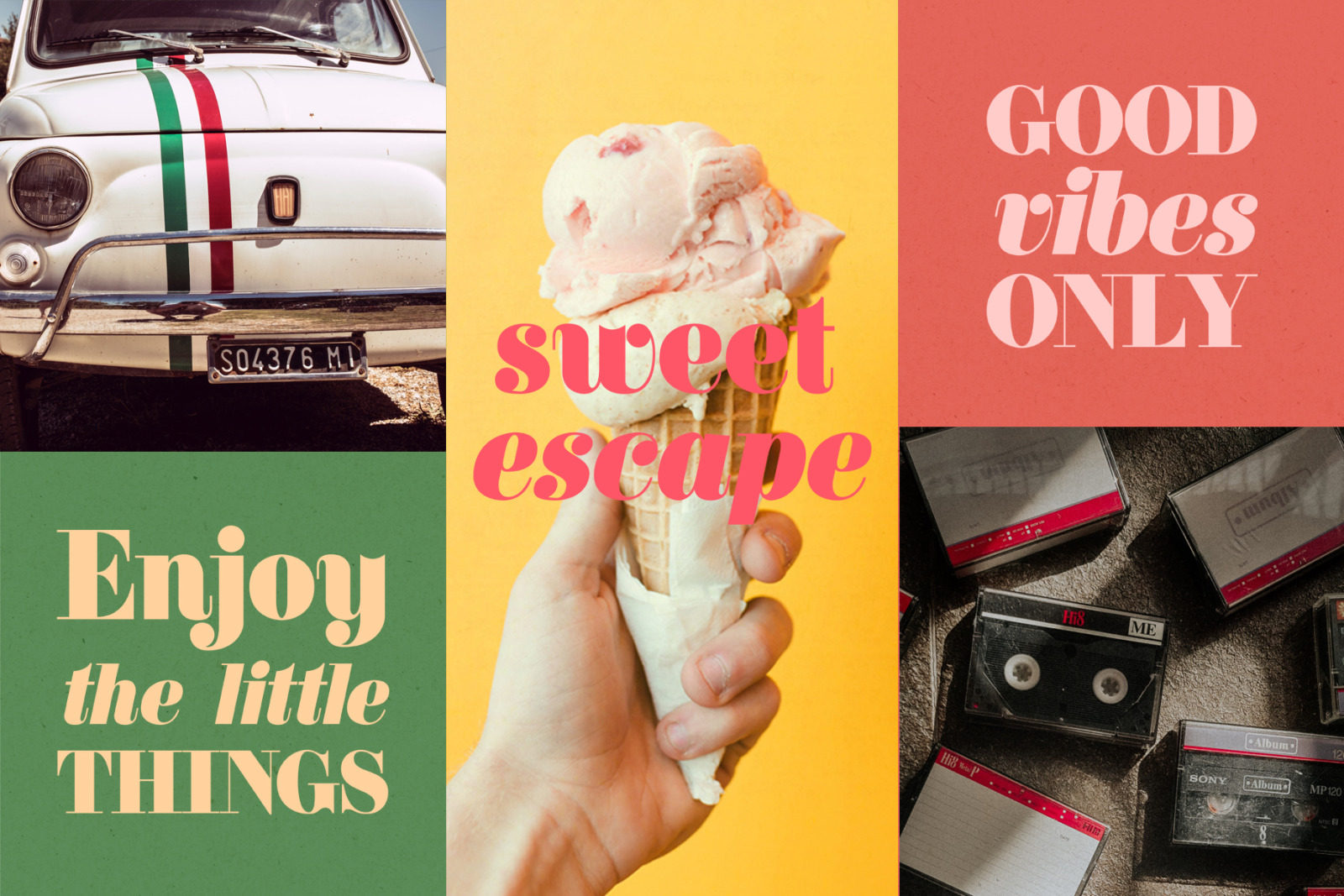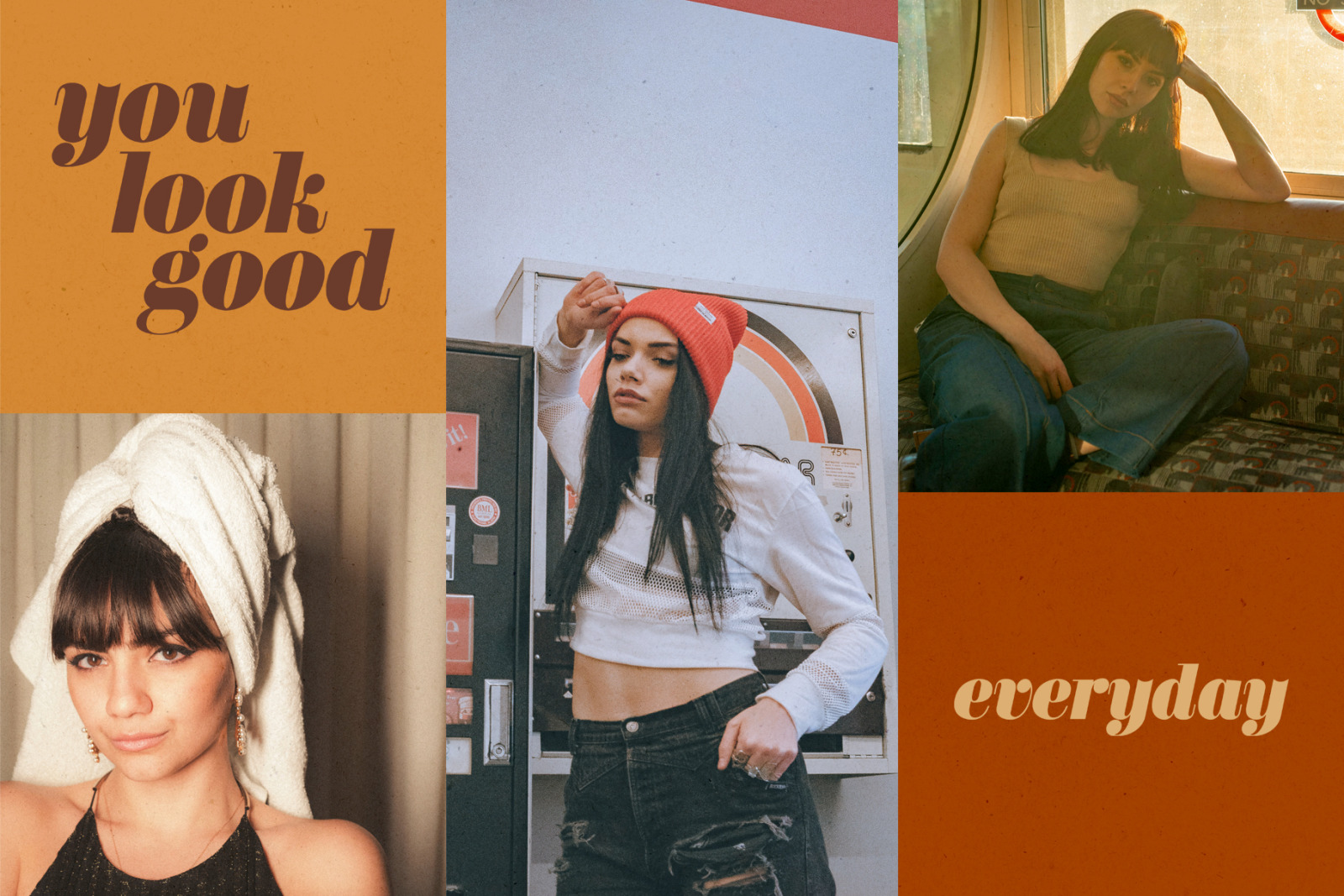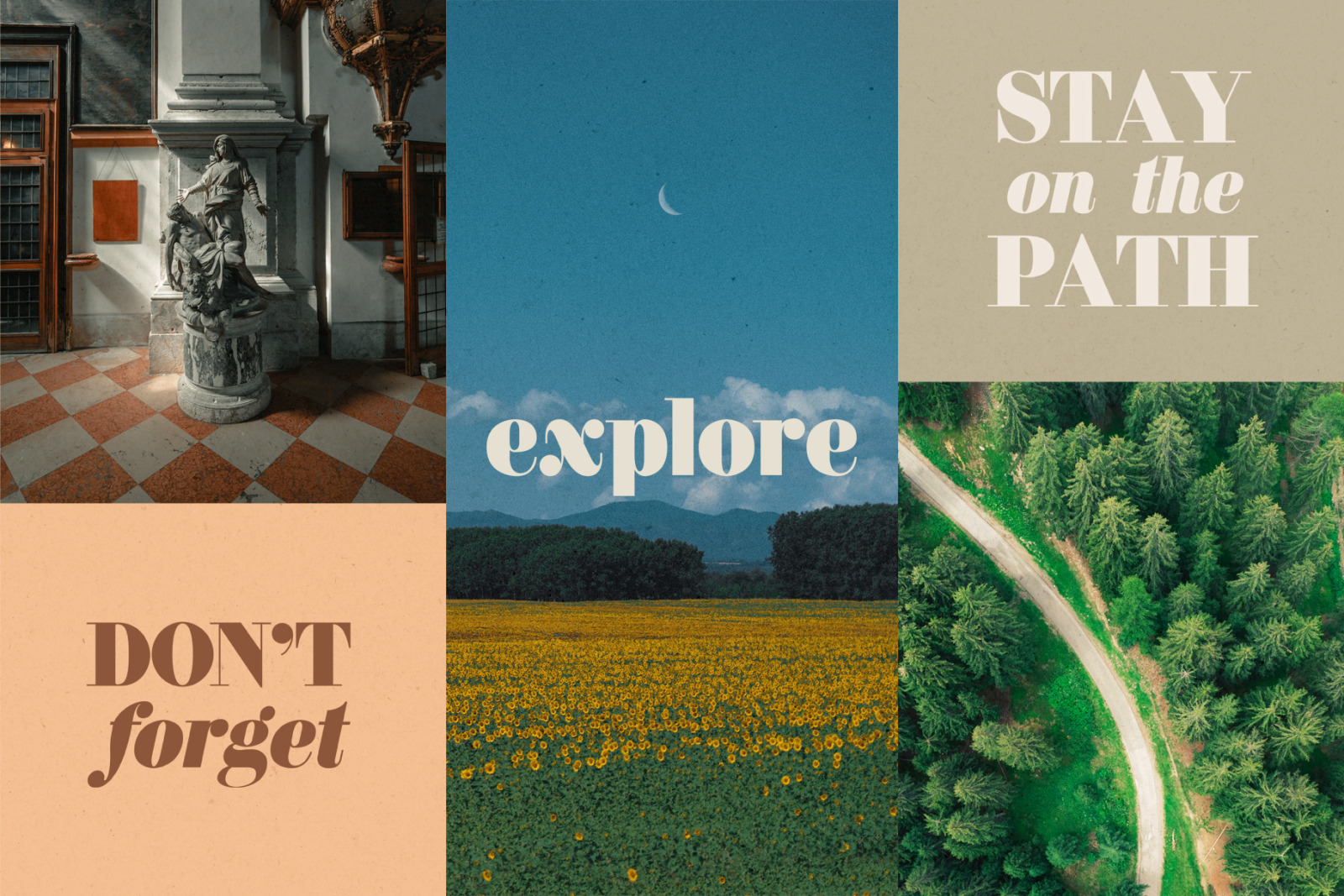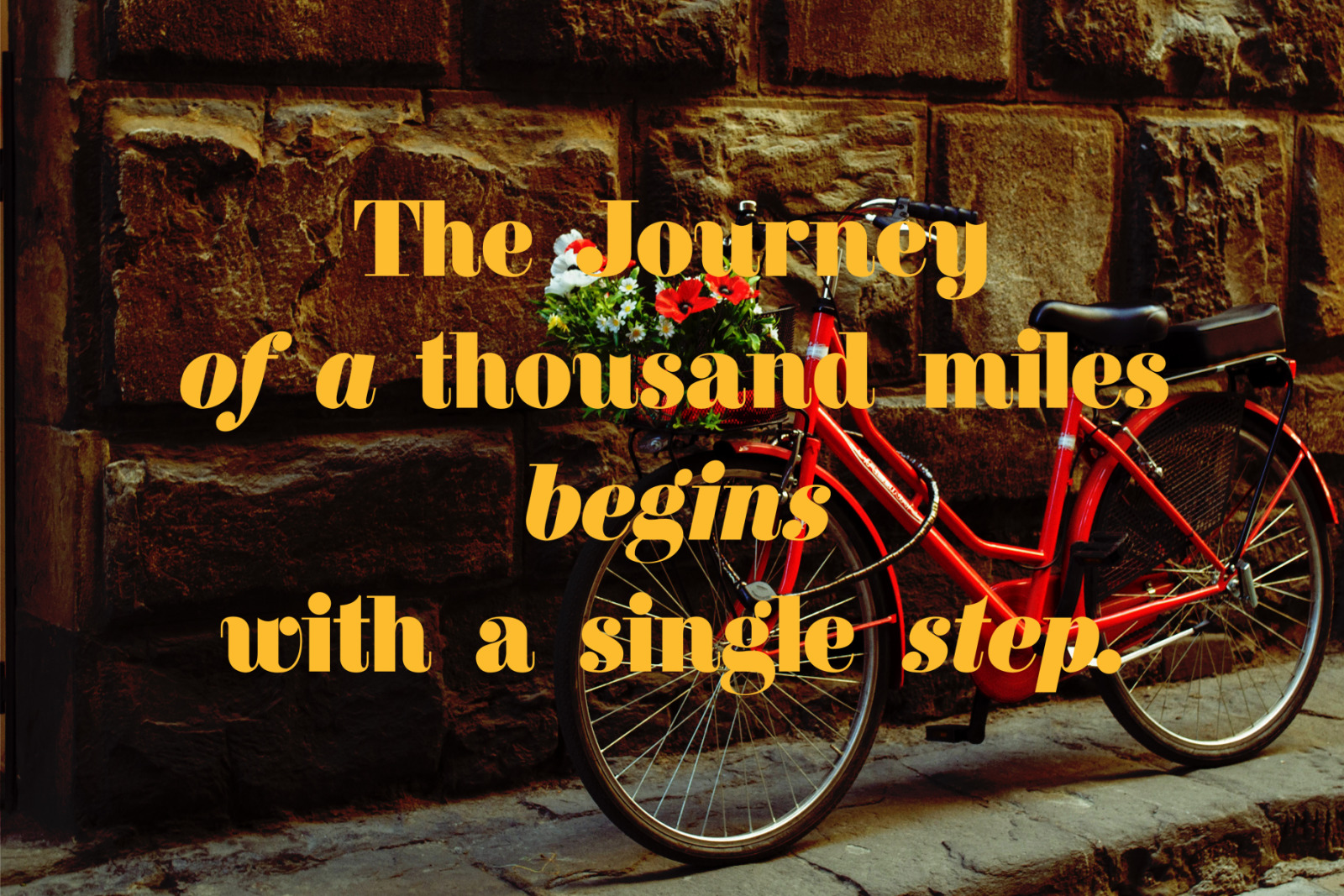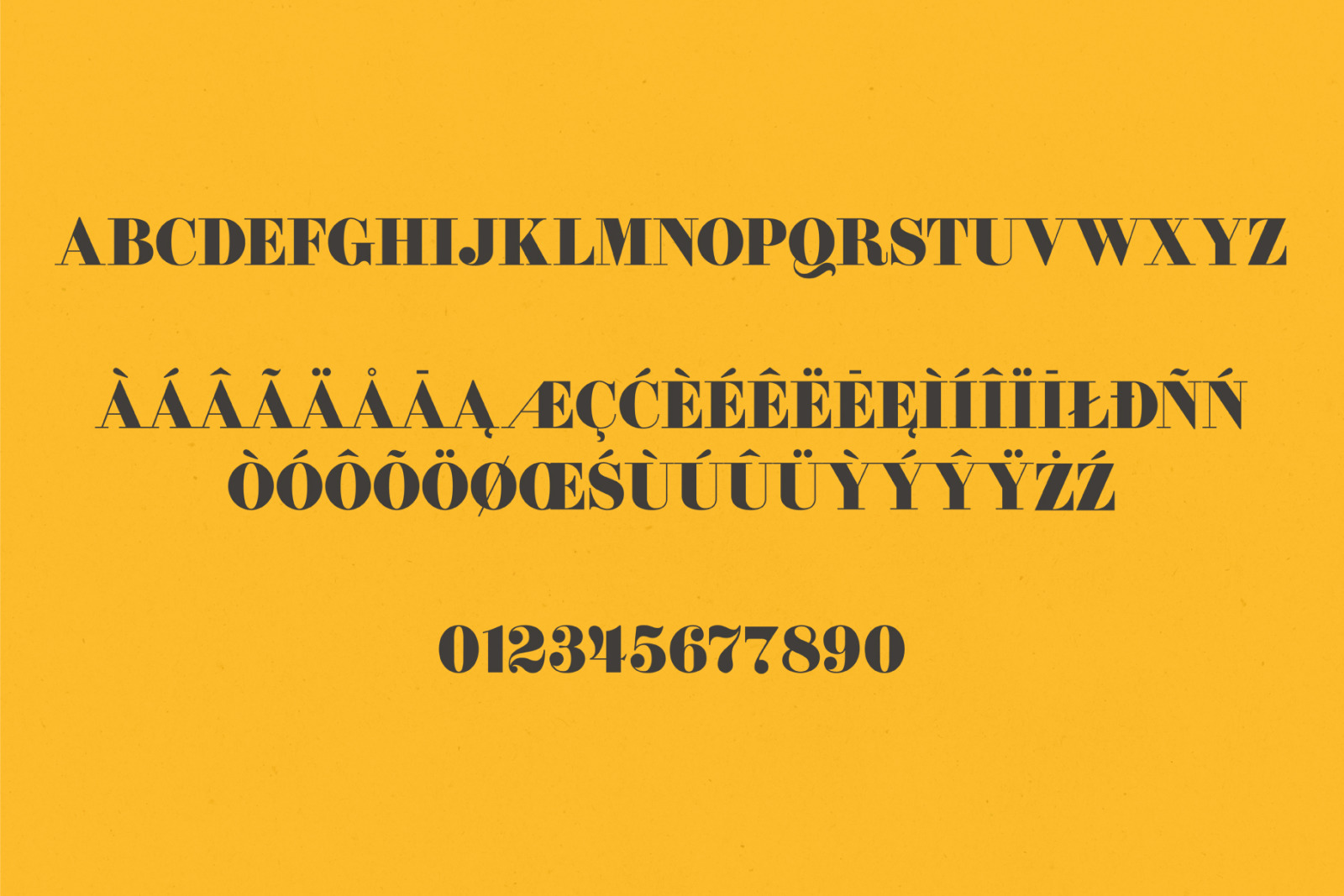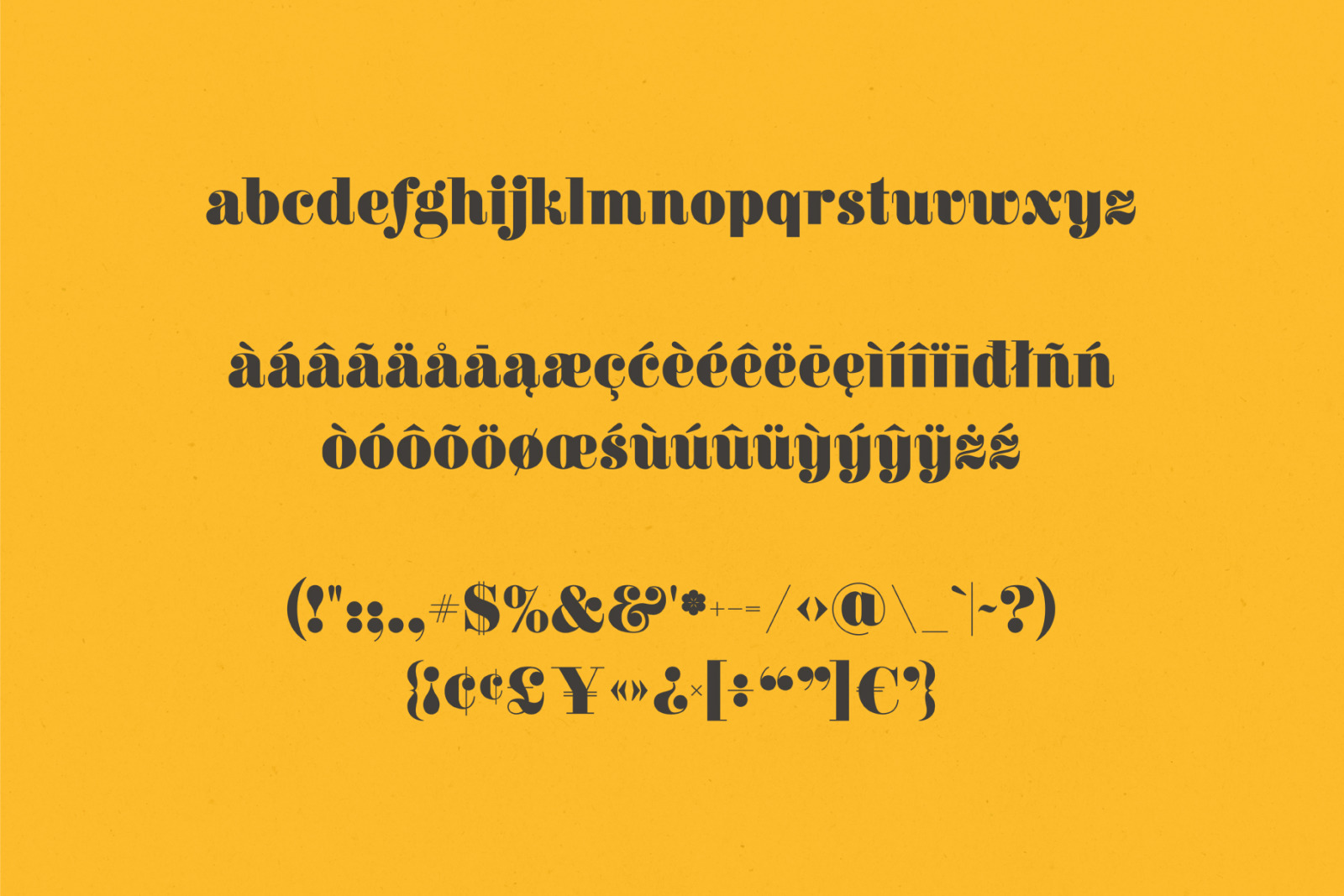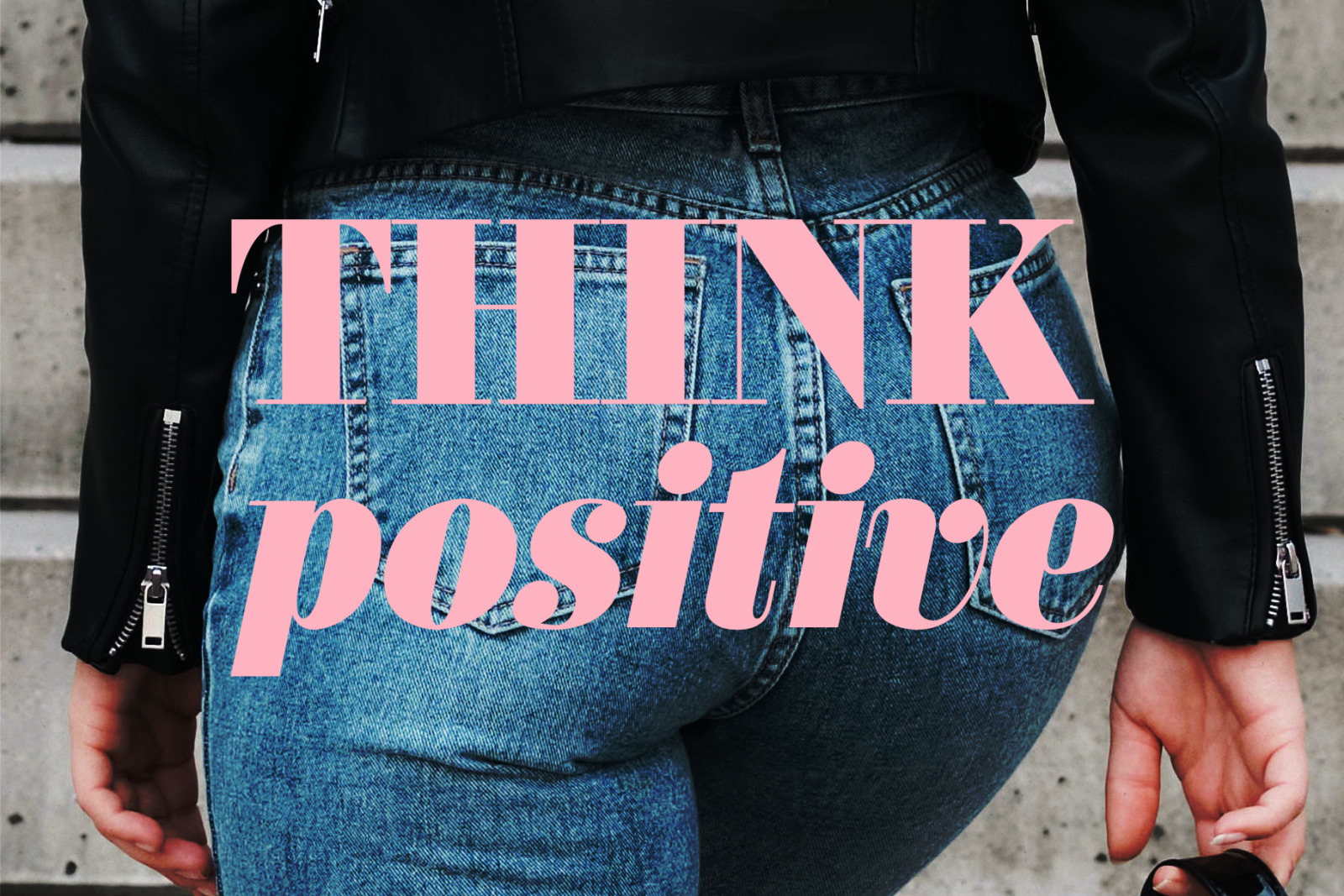
Florenzia Font
Florenzia is a bold elegant serif font. Is inspired by 70s style. Regular and italic styles allow for interesting combinations and fun with the font . Florenzia is great for socials, fashion, labels, letterings, brandings, logos and more.
Florenzia comes with 2 styles:
- regular
- italic
Language support:
ÀÁÂÃÄÅĀĄ Æ ĆÇ ÈÉÊËĒĘ ÌÍÎÏĪ Ð Ł ŃÑ ÒÓÔÕÖŒØ Ś ÙÚÛÜ ỲÝŶŸ ŻŹ Þß
àáâãäåāą æ ćç èéêëēę ìíîïī ð ńñ òóôõöœø ś ùúûü ỳýŷÿ żź þ